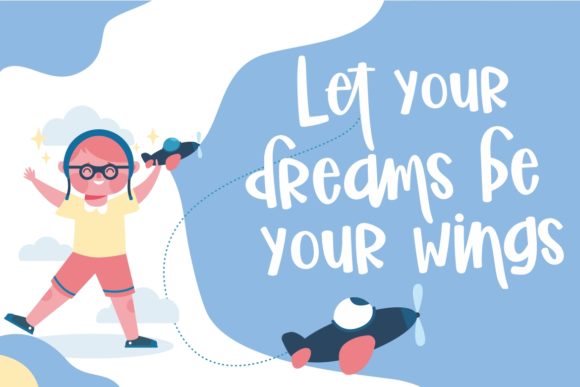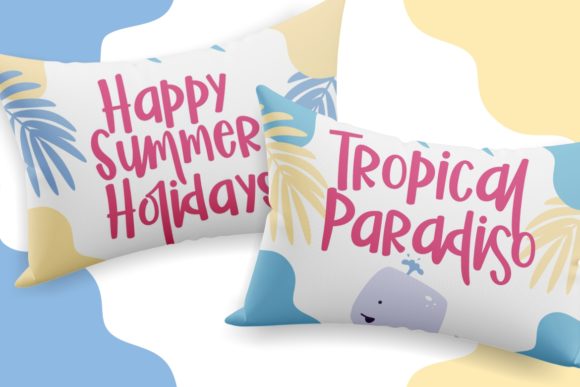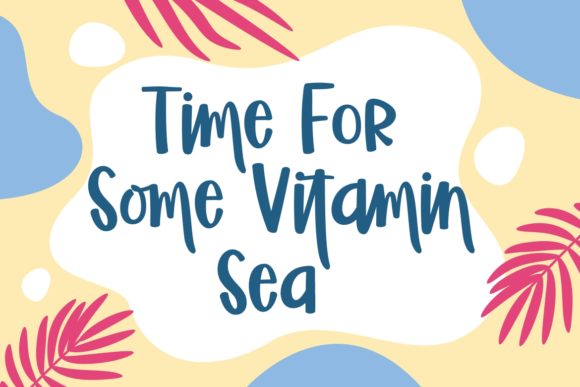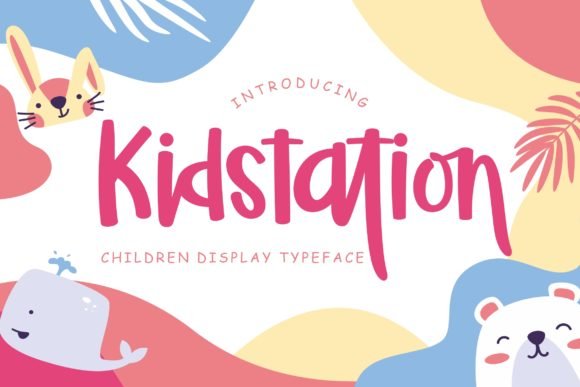
Introduction to Kidstation Font
Kidstation is a cute and playful display font.
Relaxed and a little bit quirky, this font is the perfect fit for all of your logos, branding, posters, and crafty DIY projects .
Kidstation Font offers exceptional quality and versatility, making it a valuable addition to your design toolkit. Whether you’re creating for personal projects or commercial use, Kidstation Font delivers professional results.